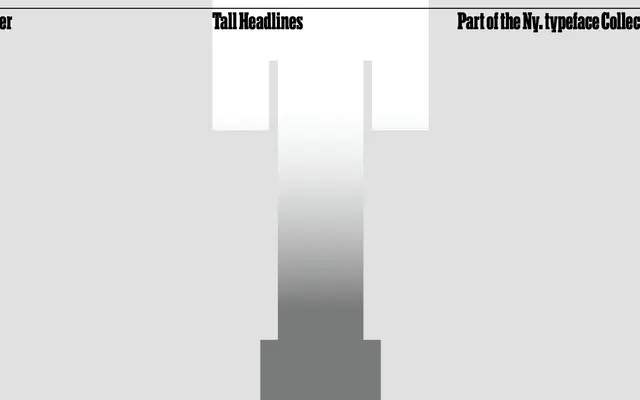
Ny. Slab Tower
A2-Type · Gail Bichler, Matt Willey
Ny. Slab Tower specimen from A2-Type
A pair of special-edition condensed slab serifs commissioned for The New York Times Magazine, each pushing vertical exaggeration further than the last.
Ny. Slab Tower and Ny. Slab Skyscraper were commissioned by art directors Gail Bichler and Matt Willey for The New York Times Magazine, extending the Ny. Slab family into increasingly tall, narrow display territory. Tower is a condensed upright of Ny. Slab; Skyscraper takes that compression to a more extreme ratio. Both are available in Black only, suited to large-scale editorial headlines where vertical rhythm and column-fitting matter.
A tall, condensed slab serif with an exaggerated vertical proportion, designed specifically for editorial display use in The New York Times Magazine. Ny. Slab Skyscraper pushes the condensation further still.